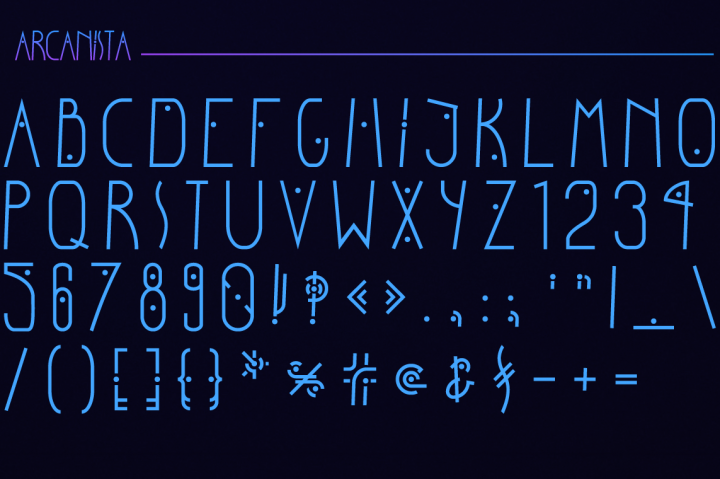
Designed by Victor Tramontin, Arcanista was a project made for his typography class. The font is inspired by runes and totems and it’s perfect for any type of design projects from posters to invitations or t-shirts. Free for personal and commercial use!